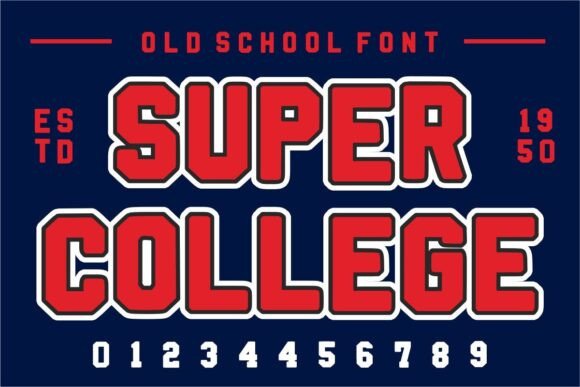
Introducing Super College Font: The Ultimate Vintage Display Font for Winter and Holiday Branding
Are you looking for a font that can add a touch of nostalgia and boldness to your winter and holiday branding projects? Look no further than Super College Font, a vintage display font that is perfect for creating eye-catching designs. In this article, we’ll take a closer look at Super College Font, its features, and how it can be used to elevate your branding projects.
What is Super College Font?
Super College Font is a bold and vintage display font that is inspired by the classic typography of the past. Its unique design makes it stand out from other fonts, and its versatility allows it to be used in a wide range of applications. Whether you’re working on a winter or holiday branding project, product packaging, invitation, quote, t-shirt, label, poster, text effect, or logo, Super College Font is the perfect choice.
Key Features of Super College Font
- Bold and Vintage Design: Super College Font has a bold and vintage design that is sure to grab attention.
- Highly Versatile: This font can be used in a wide range of applications, from branding and packaging to invitations and posters.
- Easy to Read: Despite its bold design, Super College Font is easy to read, making it perfect for use in body text and headings.
- Unique Character Set: Super College Font has a unique character set that includes uppercase and lowercase letters, numbers, and punctuation marks.
Uses of Super College Font
Super College Font is a highly versatile font that can be used in a wide range of applications. Here are some of the ways you can use Super College Font:
- Winter and Holiday Branding: Super College Font is perfect for creating winter and holiday branding projects, such as logos, packaging, and advertisements.
- Product Packaging: Use Super College Font to create eye-catching product packaging that stands out on store shelves.
- Invitations: Create beautiful and unique invitations for parties, weddings, and other special events.
- Quotes and Posters: Use Super College Font to create inspiring quotes and posters that grab attention.
- T-Shirts and Apparel: Create custom t-shirts and apparel with Super College Font.
- Labels and Stickers: Use Super College Font to create custom labels and stickers for products, gifts, and more.
Benefits of Using Super College Font
There are many benefits to using Super College Font in your branding projects. Here are some of the advantages of using this font:
- Unique and Eye-Catching Design: Super College Font has a unique and eye-catching design that is sure to grab attention.
- Highly Versatile: This font can be used in a wide range of applications, making it a great addition to any designer’s font library.
- Easy to Read: Despite its bold design, Super College Font is easy to read, making it perfect for use in body text and headings.
- Time-Saving: With Super College Font, you can create professional-looking designs in a fraction of the time it would take to create them from scratch.
How to Use Super College Font
Tips and Tricks for Using Super College Font
Here are some tips and tricks for using Super College Font:
- Use it Boldly: Super College Font is a bold font, so use it boldly to create eye-catching designs.
- Experiment with Colors: Experiment with different colors to find the perfect combination for your design.
- Pair it with Other Fonts: Pair Super College Font with other fonts to create a unique and interesting design.
Super College Font is a bold and vintage display font that is perfect for creating eye-catching winter and holiday branding projects. Its unique design, versatility, and ease of use make it a great addition to any designer’s font library. With Super College Font, you can create professional-looking designs in a fraction of the time it would take to create them from scratch. So why wait? Download Super College Font today and start creating amazing designs!
- What is Super College Font?: Super College Font is a bold and vintage display font that is perfect for creating eye-catching winter and holiday branding projects.